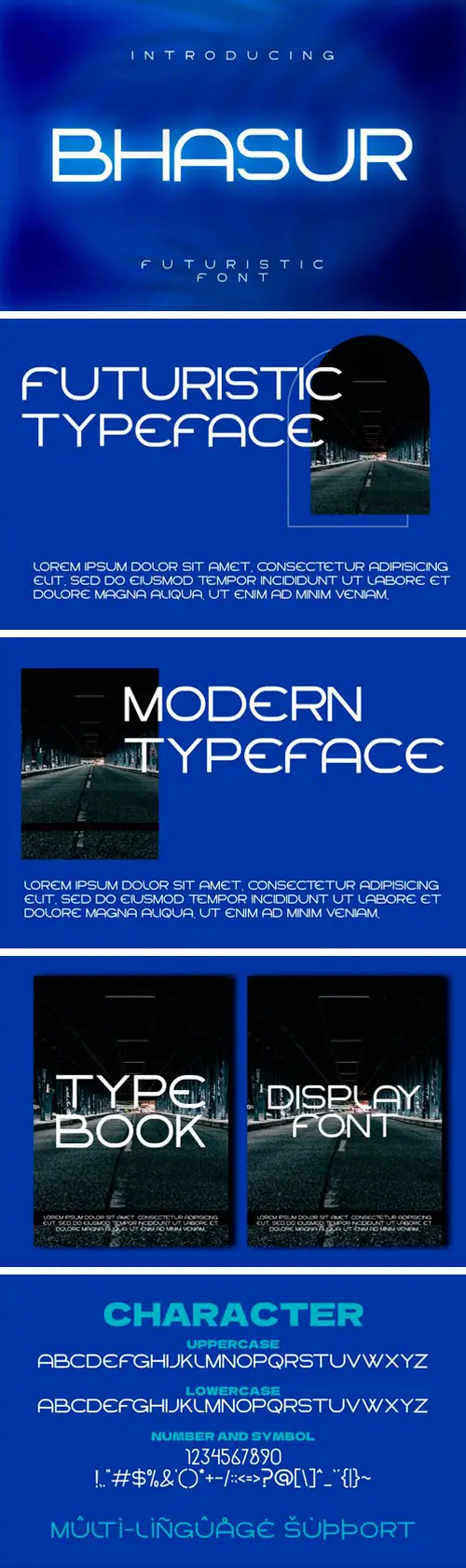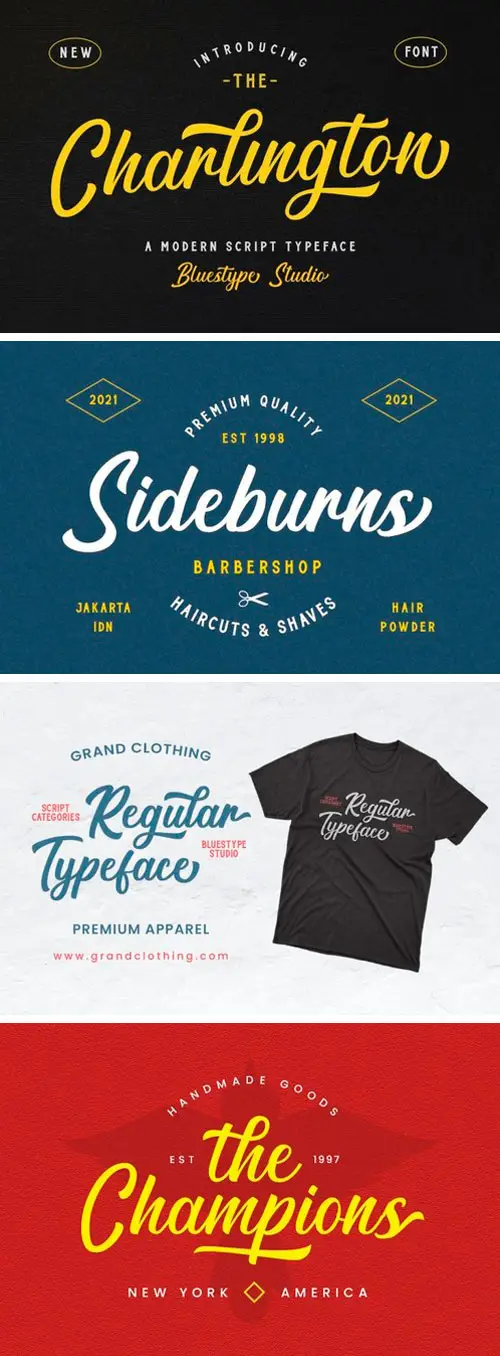
Ephemera Fascia Display Font
🔥 Want to make a bold statement? This striking display font has unique character shapes that scream “look at me!” Perfect for posters, branding headlines, and anything that needs instant impact. It includes uppercase, lowercase, numerals, and punctuation—everything you need. 🚀
Emolka Script Font
💫 Elegance meets modern touch! Emolka’s flowing curves add personality to logos, wedding invites, and web designs. With multiple weights, you can create beautiful contrast in your typography. It’s a script that feels both fresh and timeless. 🌹
Catfish Blues
🎶 A unique digital design asset that oozes creativity! This high-resolution graphic is perfect for branding, social media promotions, or adding a splash of artistic flair to your projects. The customizable elements make it a versatile must-have. 🎨
California Handwritten Typeface
☀️ Sunshine in a font! This handwritten typeface brings a casual, elegant vibe perfect for branding, logos, and print materials. With multiple weights and multilingual support, it’s as functional as it is beautiful. 🖊️
Esgras Font
🌟 A perfect blend of elegance and modernity! Esgras features clean lines and a contemporary look that works beautifully for branding, web design, and print materials. Available in multiple weights—it’s incredibly versatile. 💎
Charming Smile Display Font
😄 This font is pure joy! Its playful and whimsical design is perfect for children’s books, party invitations, or any project that needs a friendly, fun touch. Comes with all the characters you need. 🎉
Charlington Calligraphy Font
🖋️ Pure elegance in digital form! Charlington’s flowing calligraphy strokes are perfect for invitations, greeting cards, and upscale branding. With multiple weights and multilingual support, it’s a calligraphy dream come true. 👑
Calligraphy Font
✨ Sophistication at its finest! This beautifully crafted typeface combines flowing strokes with artistic flair. Ideal for invitations, branding, or any design that needs a touch of class. Multiple weights give you total control. 🌸
Bastinson Handwritten Font
📝 Natural, authentic, and oh-so-personal! Bastinson captures the essence of real handwriting with unique curves and fluid strokes. Great for personal projects, cards, and adding a human touch to any design. Multiple weights and multilingual support included! 💌
Claudey
🖌️ Versatility is the name of the game! Claudey is a high-quality design asset compatible with popular software, ready for personal or professional use. Whether for web or print, it adds a modern edge to your work. 🚀
Callingstone Sans Serif Font
🧊 Crisp, clean, and modern! This sans-serif font is a designer’s best friend for branding, logos, web design, and print. With multiple weights and a minimalistic aesthetic, it ensures clarity and style in every project. 📄
Cal Neuland Shadow
🎭 Vintage charm with a modern twist! This unique font features a stylish shadow effect for added depth, making it perfect for logos, branding, and eye-catching web designs. Multiple weights give you plenty of options. 🕰️
Barack Handwritten Font
✏️ Charming, expressive, and uniquely handwritten! Barack is perfect for adding a casual, friendly look to your designs. With multiple weights and complete character sets, it’s ideal for posters, logos, and social media. 💬
Bhasur Sans Serif Font
🔤 Clean, contemporary, and super readable! Bhasur is a modern sans-serif that shines in user interfaces, branding, and web design. Its multiple weights ensure you get the perfect look every time. A true workhorse font! 🛠️
Biryllo Script Font
🌿 Elegant and modern—Biryllo Script is a dream for branding, logos, and print design. With Regular and Bold weights in OTF, TTF, and WOFF formats, it’s ready for any project. Flowing curves that demand attention! 💃